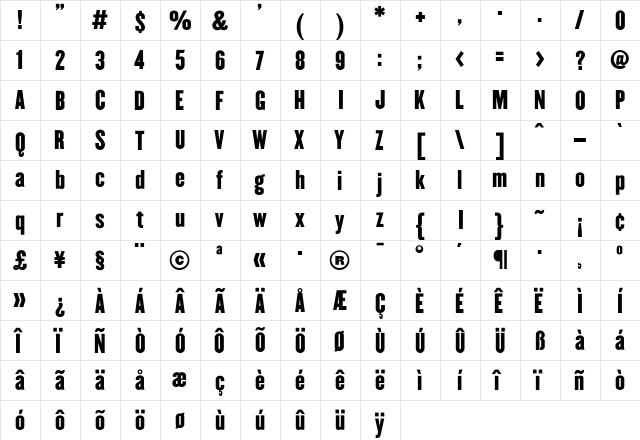
Champion Medium
Design Context for Champion Typeface
Champion offers clean, dependable letterforms without strong stylistic allegiance, making it a practical choice for designers who need flexibility.
Pro Tip: Use Champion in both headline and body roles to test its range before committing to a single application.